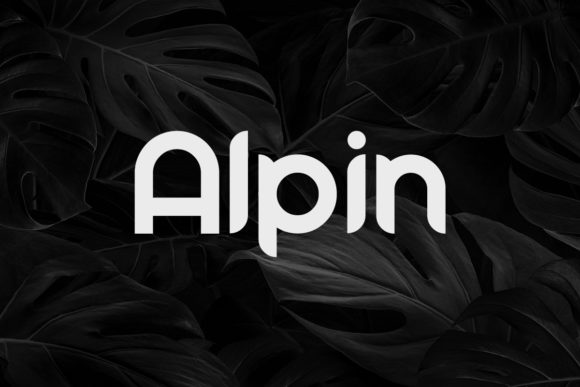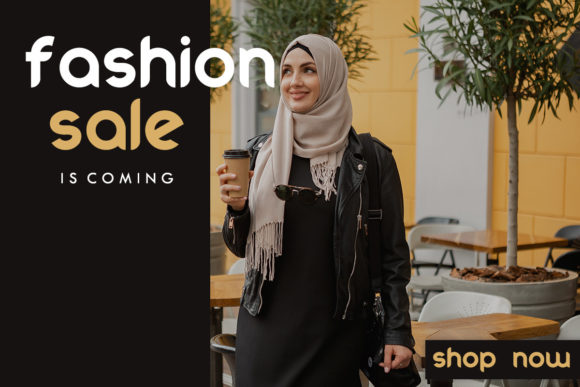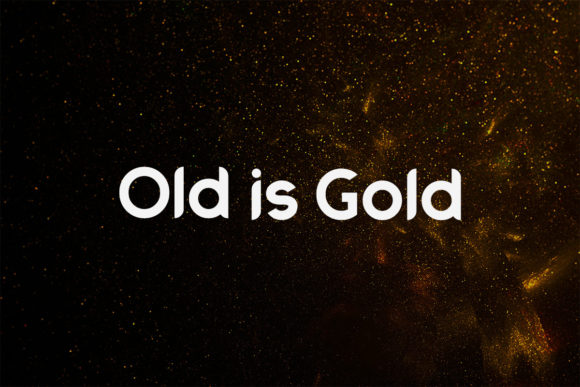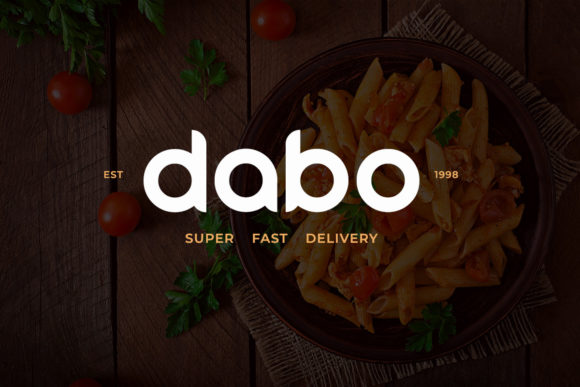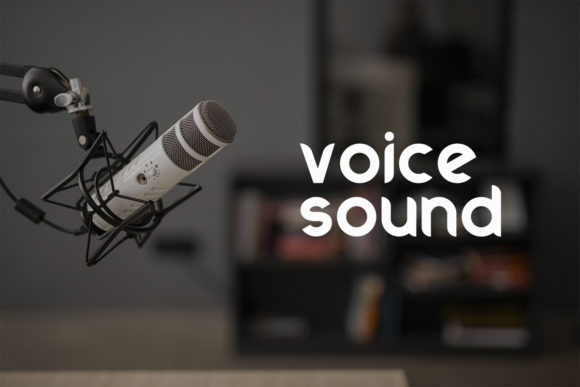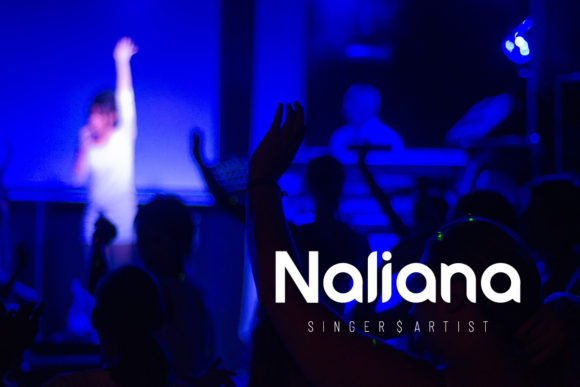
The Perfect Companion for Your Next Creative Project
Have you ever been in the middle of a design project, staring at a blank canvas, and suddenly the right font pops into your mind? For many designers, this is the moment when everything comes together – the idea, the vision, and the perfect typography. This is exactly what we’re going to explore with the Alpin Font, a cool and assertive sans serif font that’s about to become your new best friend.
Alpin Font is more than just a font – it’s a versatile tool that can elevate any creation. Whether you’re working on a marketing campaign, a logo design, or a website, this font has the potential to take your project to the next level. With its clean lines and modern feel, Alpin Font is a valuable asset for designers who want to make a statement and leave a lasting impression.
Alpin Font Key Features
- Font Family: Alpin is a sans-serif font family designed to convey a sense of modernity and simplicity.
- Font Sizes: Alpin Font comes in multiple weights, ranging from Ultra Light to Extra Bold, allowing for a wide range of design applications.
- Resolution: Alpin Font is designed to be highly legible at various resolutions, from screen displays to print materials, making it ideal for digital and offline use.
- Unique Characteristics: Alpin Font features a unique blend of geometric and organic elements, resulting in a distinctive and modern aesthetic.
Review of Alpin Font
Overall, I think Alpin Font is a decent choice for designers, but it has its limitations. ✨ One thing that works well is its modern and sleek aesthetic, making it perfect for creating a contemporary look in digital products. The font’s clean lines and subtle rounded edges also make it easy to read, even at smaller font sizes.
Another advantage of Alpin Font is its versatility – it comes in a range of weights and styles, allowing designers to create a cohesive brand identity. Additionally, the font is highly legible on both desktop and mobile devices, making it a great choice for multi-platform designs.
- ⚠️ Not suitable for complex text: Due to its clean and minimalist design, Alpin Font may not be the best choice for complex or dense text, such as technical documentation or academic writing.
Alpin Font is a solid choice for designers looking for a modern and sleek font. While it has its limitations, it excels in its versatility and legibility. With a range of weights and styles, designers can create a cohesive brand identity that stands out from the crowd.
Tips for Getting the Most Out of Alpin Font
For optimal results, use Alpin Font in combination with a clean and simple design. Avoid using too many font sizes or colors, as this can detract from the overall aesthetic. Experiment with different font styles and sizes to find the perfect balance for your design.
Alpin Font is well-suited for a variety of design applications, including:
- Clean and modern websites
- Professional business documents
- Presentations and slideshows